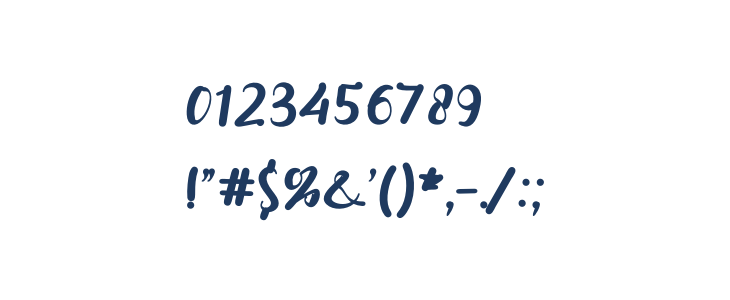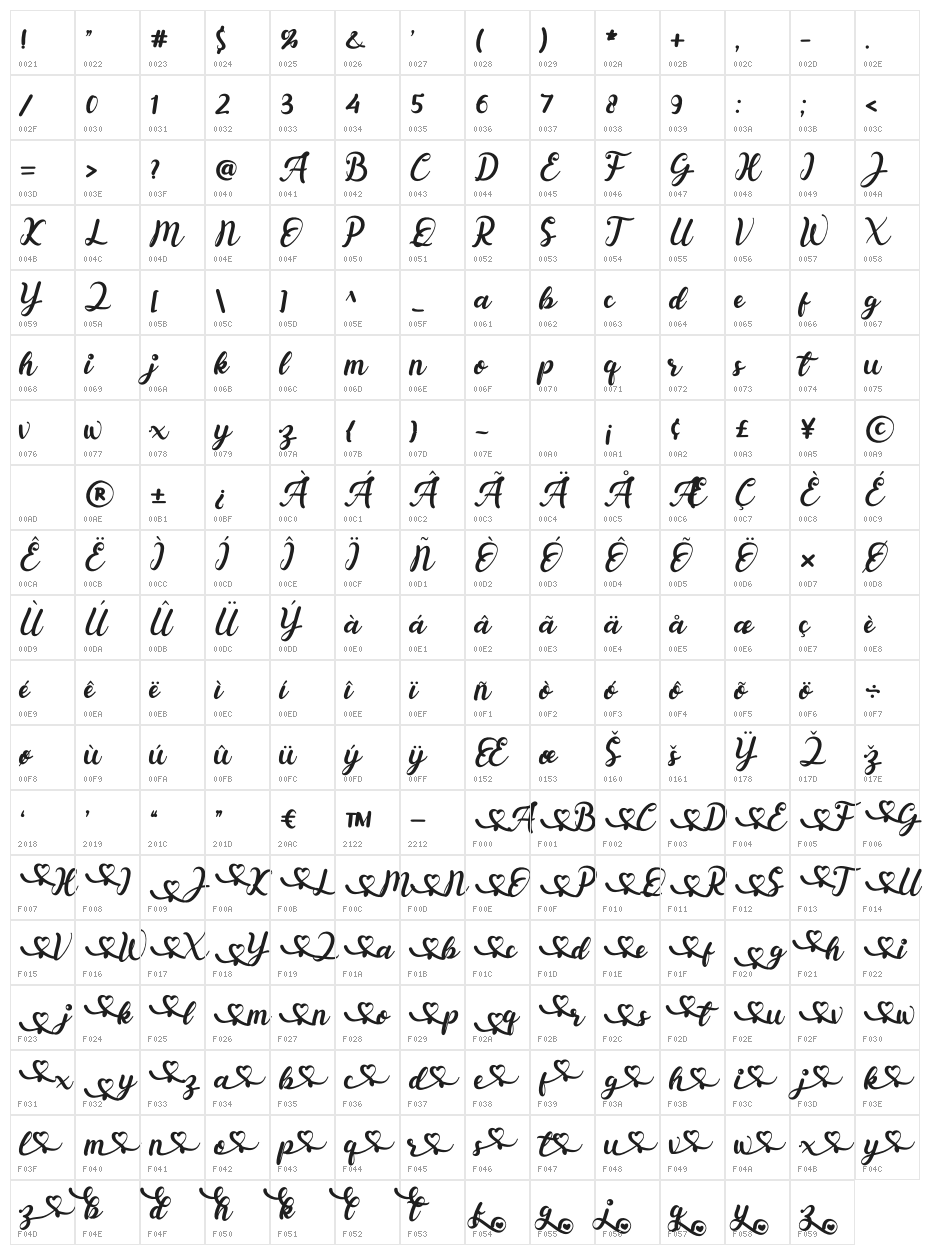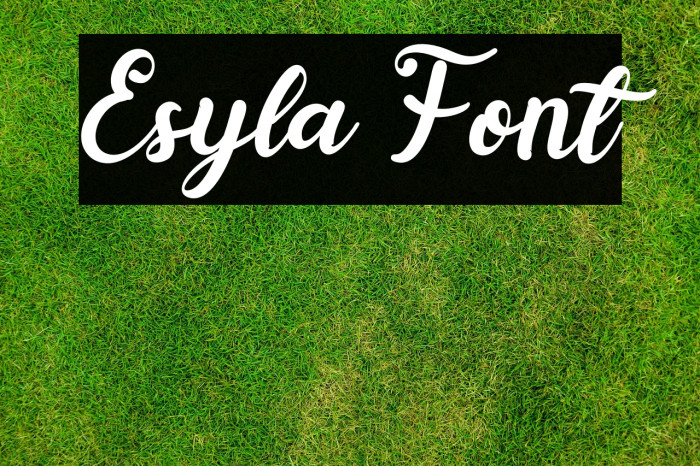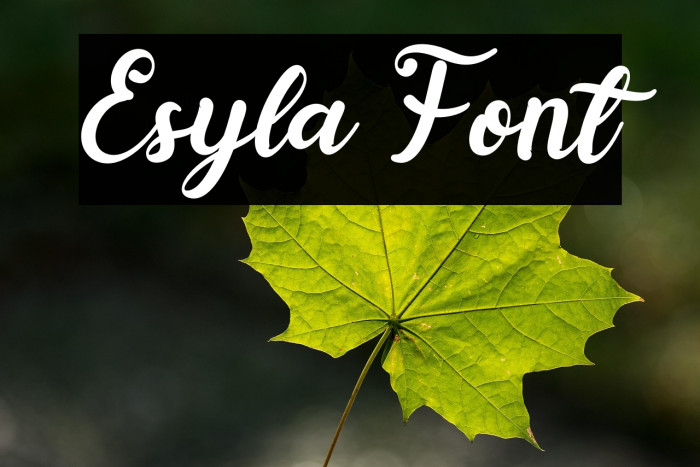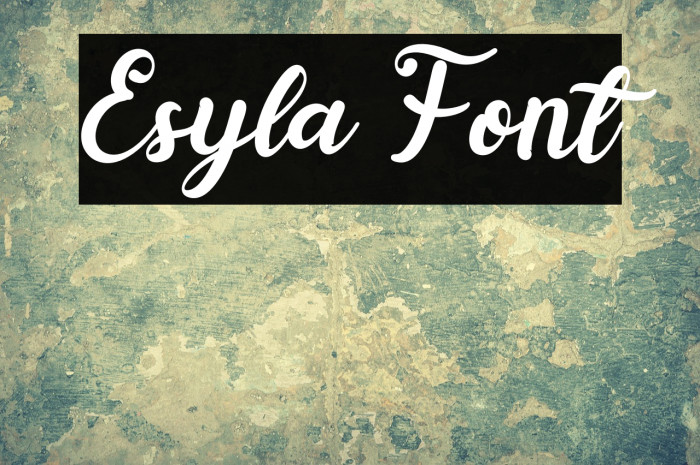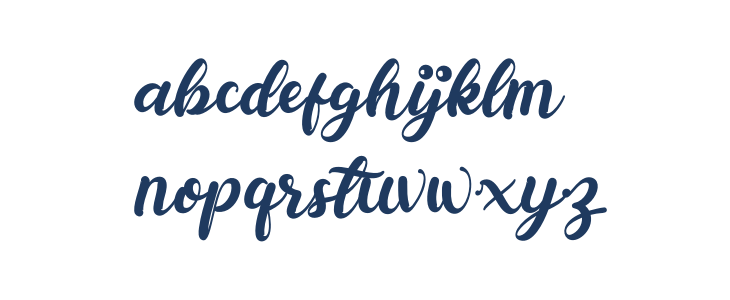
Esyla Font
Esyla Description
This font features a flowing, cursive style with a bold presence. The letters are interconnected, giving it a smooth and elegant appearance. The uppercase letters are slightly more elaborate, with decorative swashes and loops, while the lowercase letters maintain a consistent flow, enhancing readability. The numbers and special characters follow the same stylistic cues, ensuring uniformity across all glyphs. This font exudes a sense of sophistication and charm, making it suitable for projects that require a personal touch.
| Overall Style | Elegant |
| Use Case | Logos, Invitations, Decorative text |
| Proposed Projects | Ideal for wedding invitations, greeting cards, branding, and logo design. |